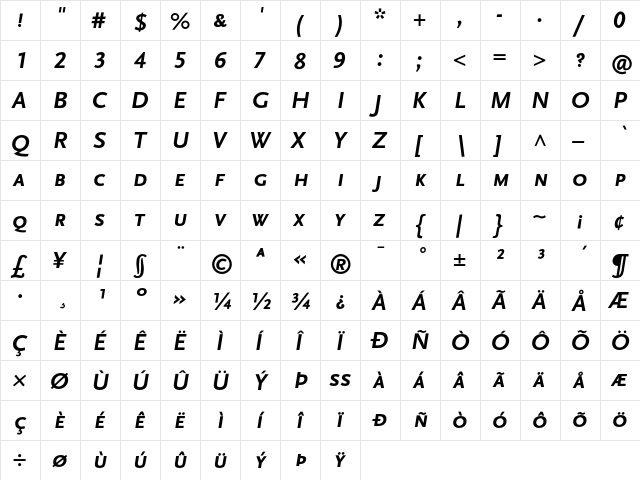
Scala Sans Bold SC Italic
Design Context for Scala Sans Typeface
Scala Sans takes a measured approach to typography — its balanced proportions and neutral character make it a reliable workhorse for both digital and print work. Its italic angle brings a sense of urgency and motion to the letterforms. The heavy weight commands attention and anchors typographic hierarchies.
Pro Tip: Use Scala Sans for emphasis, pull quotes, and subheadings where its slanted energy can add rhythm to the layout.